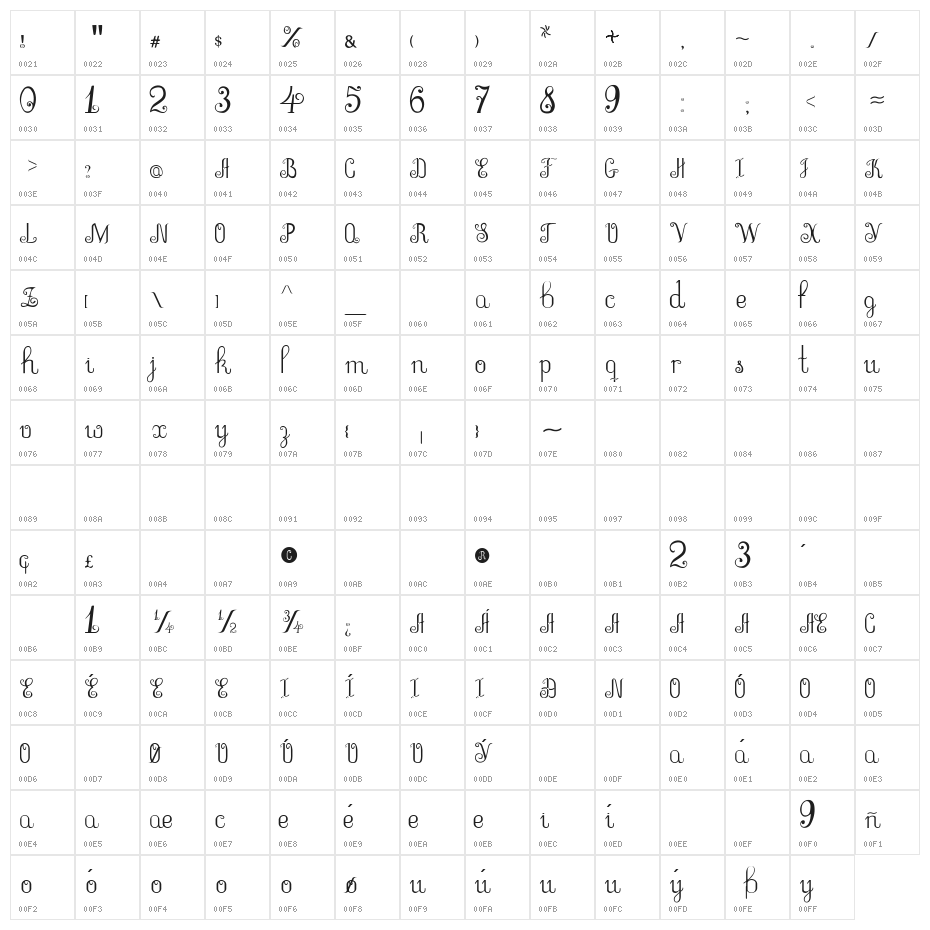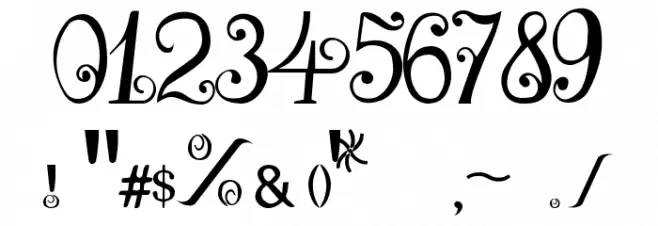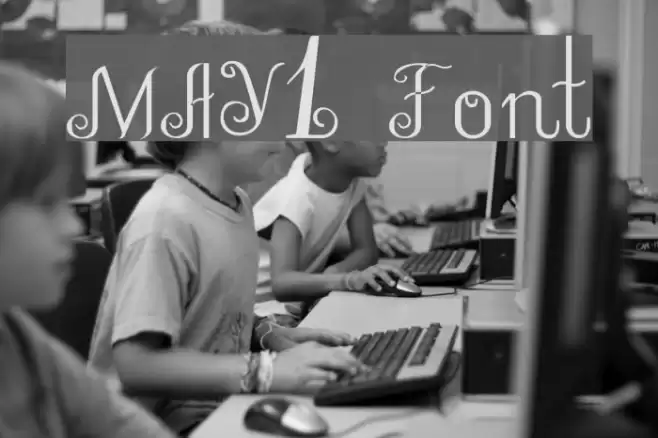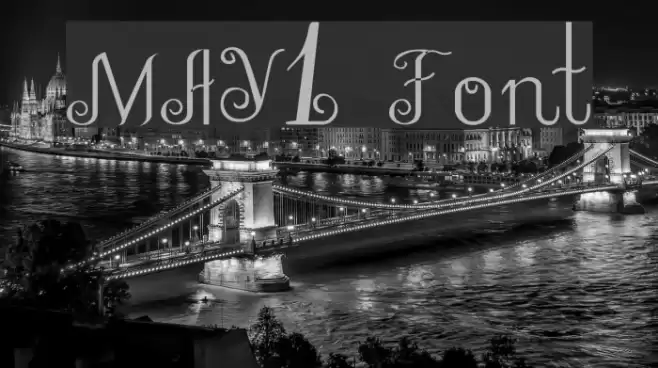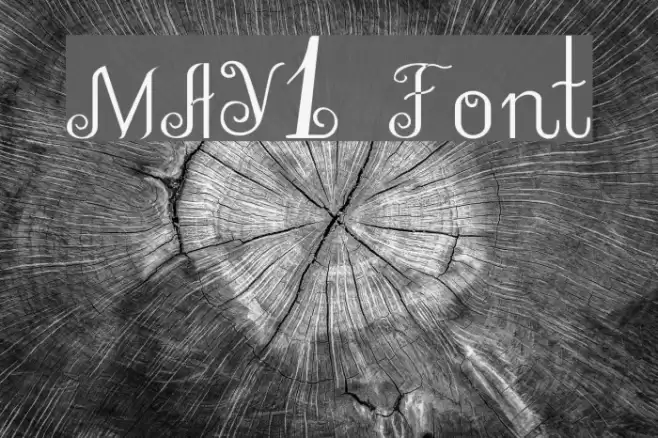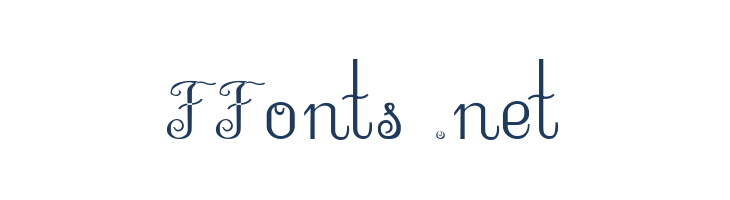
MAY1 Font
MAY1 Description
This font features an elegant and whimsical design, characterized by its decorative swirls and curls that embellish each letter. The uppercase letters are particularly ornate, with intricate loops and flourishes that give the font a playful yet sophisticated appearance. The lowercase letters maintain a consistent style, with a slightly more restrained use of embellishments, ensuring readability while retaining the font's unique charm. The numerals are equally decorative, incorporating the same swirling elements that unify the overall design. Special characters are thoughtfully designed to match the aesthetic, making this font suitable for creative and artistic projects.
| Use Case | Headlines, Logos, Artistic projects |
| Proposed Projects | Ideal for invitations, greeting cards, branding, and artistic projects that require a touch of elegance and creativity. |